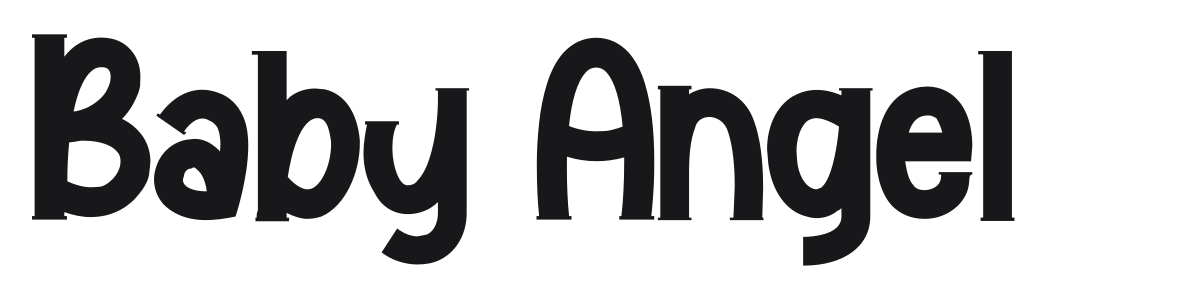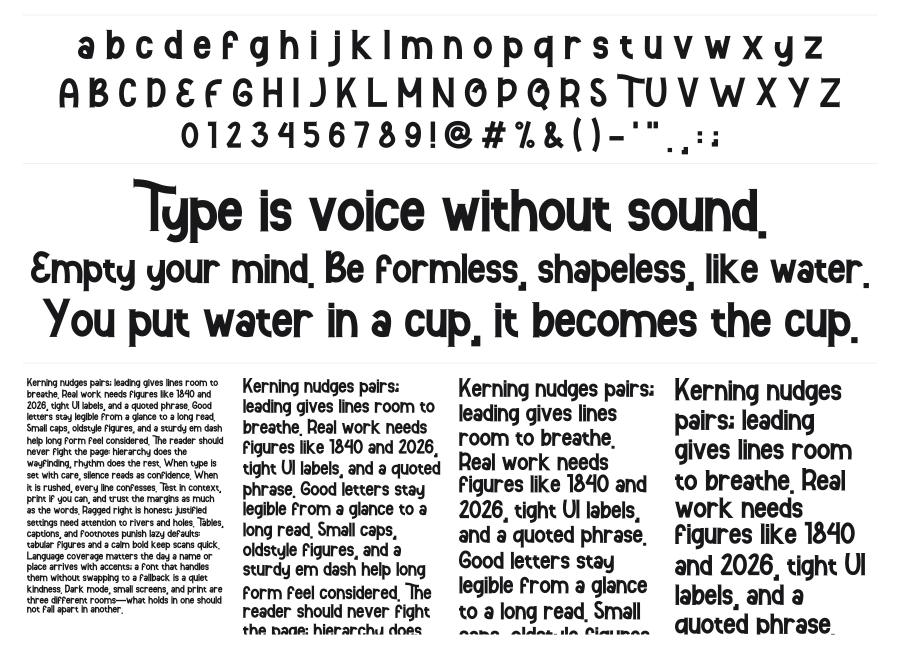
Baby Angel
Baby Angel is a bold, condensed retro display font with a heavy, chunky presence and softly rounded terminals. Its slightly irregular curves and organic stroke joins give it a warm, hand-crafted feel rooted in 1970s groovy lettering. It brings energy and personality to headlines, posters, and branding that wants a fun, nostalgic edge.